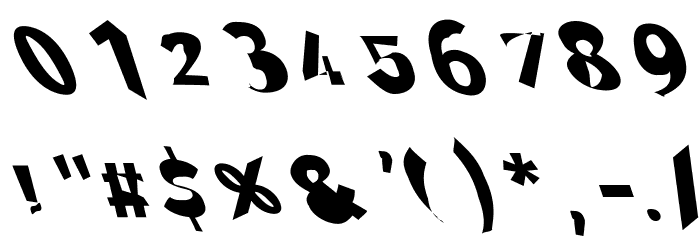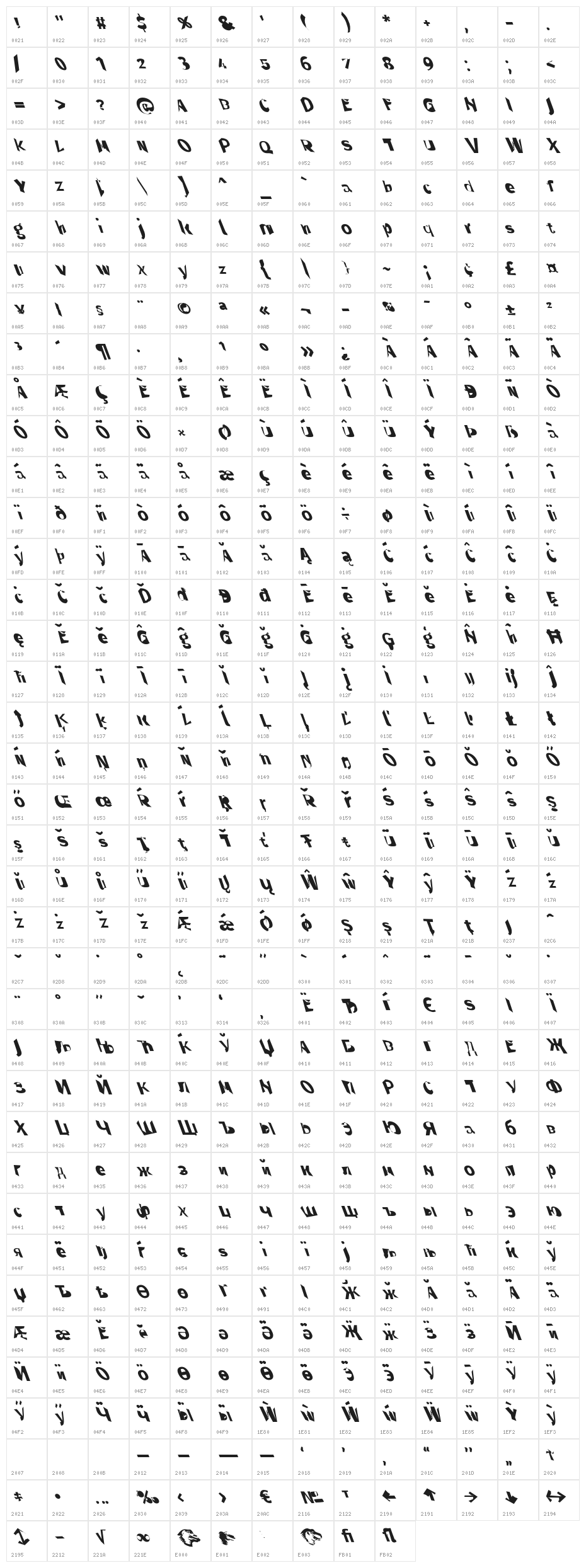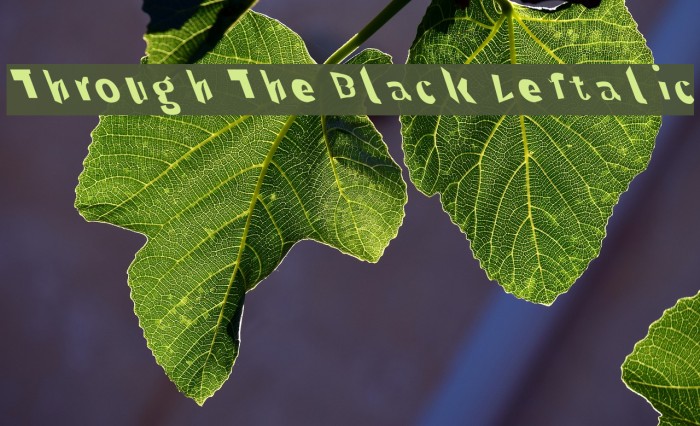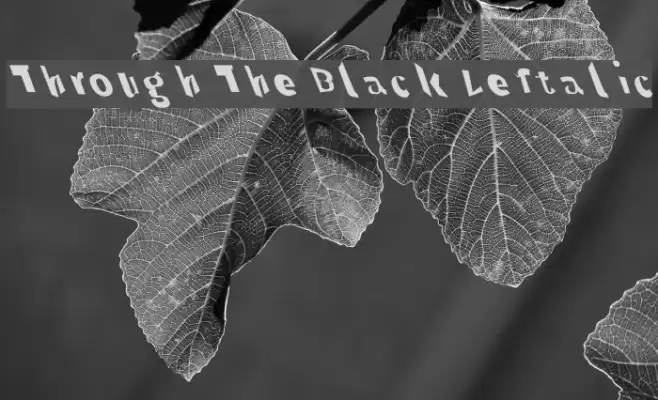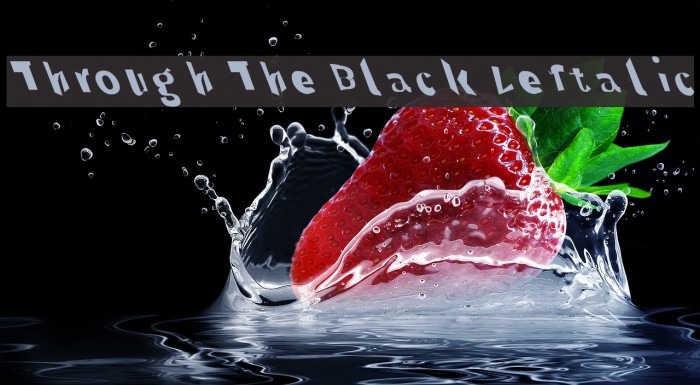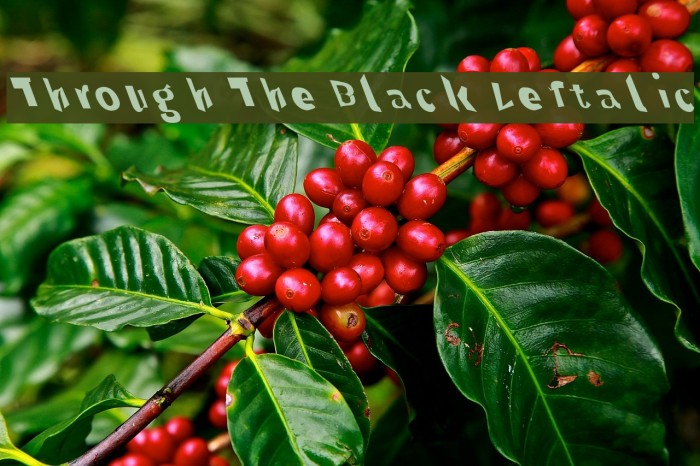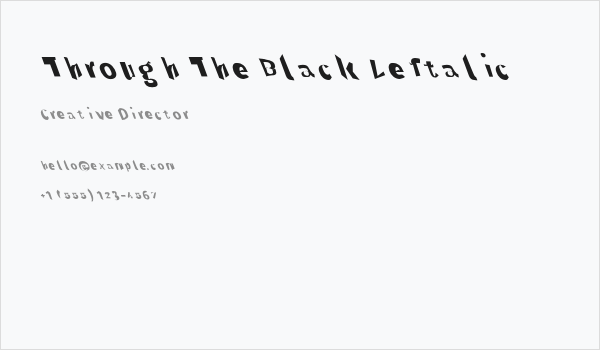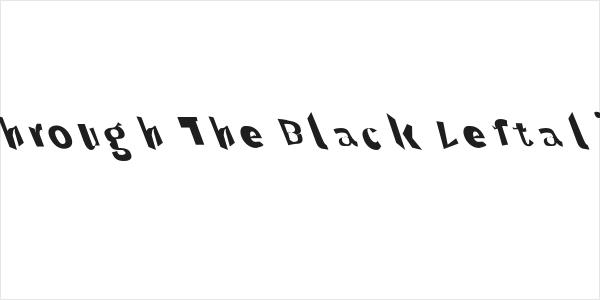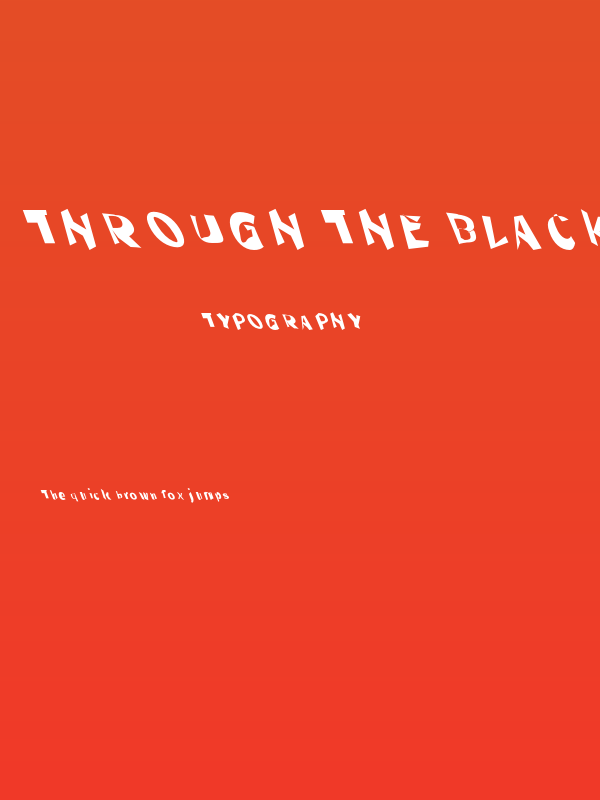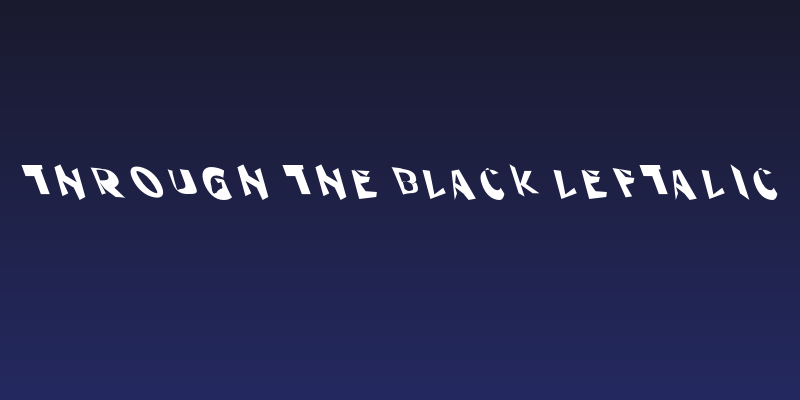
Through The Black Leftalic Font
Through The Black Leftalic Description
This font features a bold and dynamic style with a distinct leftward slant, giving it a sense of movement and energy. The characters are designed with sharp angles and irregular shapes, creating a unique and edgy appearance. The uppercase and lowercase letters maintain a consistent style, while the numbers and special characters complement the overall aesthetic. The font's boldness and irregularity make it stand out, ideal for projects that require a strong visual impact.
| Overall Style | Modern, Edgy |
| Proposed Projects | Ideal for posters, album covers, and branding projects that require a bold and dynamic look. |